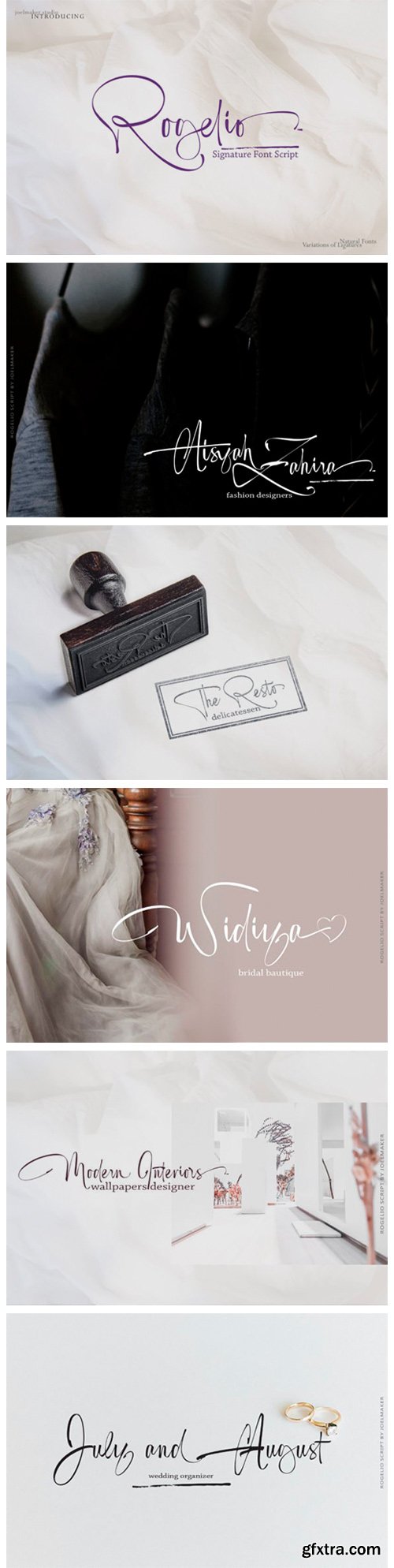
Rogelio Script Font
Rogelio Script is an enchanting handwritten font. This versatile script font has a wide spectrum of applications ranging from greeting cards to headlines. Rogelio Script is PUA encoded which means you can access all of the glyphs and swashes with ease!